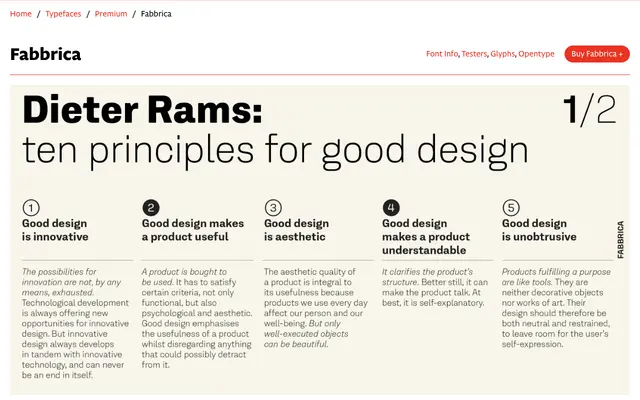
Fabbrica
A geometric sans by Michele Patanè with an industrial character, offered in rounded and sharp-cornered variants across eight weights.
Designed by Michele Patanè and developed between 2019 and 2022, Fabbrica takes its name from the Italian word for factory and draws on industrial production as a formal reference. The family splits into two variants: Fabbrica with rounded corners for a warmer feel, and Fabbrica Sharp with hard corners suited to high-contrast headlines or compensating for optical rounding at small sizes. Sixteen styles in total, from Thin to ExtraBold with matching italics, alongside a generous set of OpenType alternates including constructed style, streamlined uppercases and circled figures.
Fabbrica uses squared curves, even proportions and technical-geometric letterforms consistent with the geometric sans-serif genre, with an industrial character distinguishing it from purely humanist or grotesque approaches.